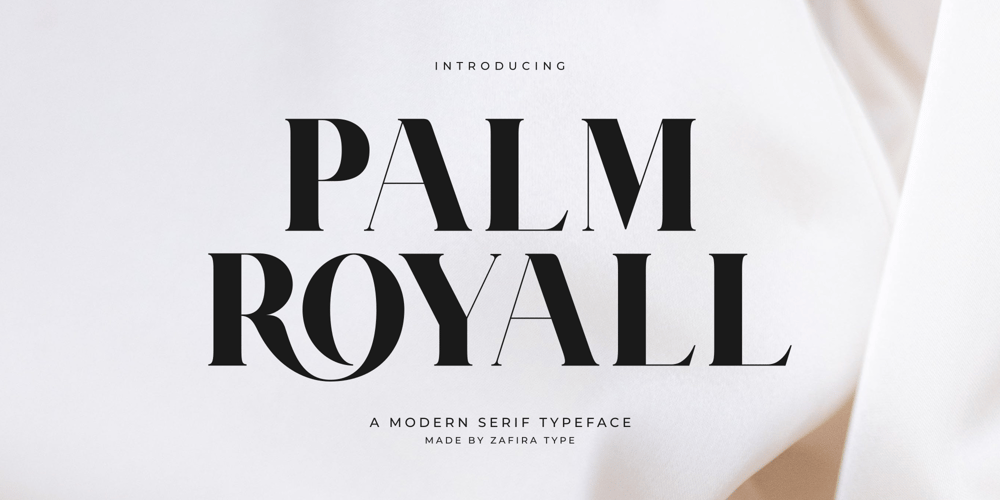
Palm Royall Font Family was designed by Su Hirno and published by Zafira Type. Palm Royall contains 1 styles and family package options. Palm Royall is a type of serif font that combines classic elegance with a contemporary touch. With smooth yet sturdy lines, this font creates an impression of luxury and sophistication in every design. Suitable for various design purposes ranging from print materials to digital designs, “Palm Royall” delivers a sharp and classy message. With a regal aura that resonates, this font is the perfect choice for design projects requiring an exclusive and impressive touch.